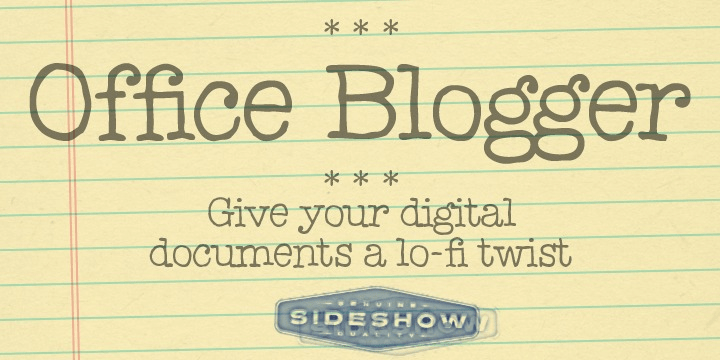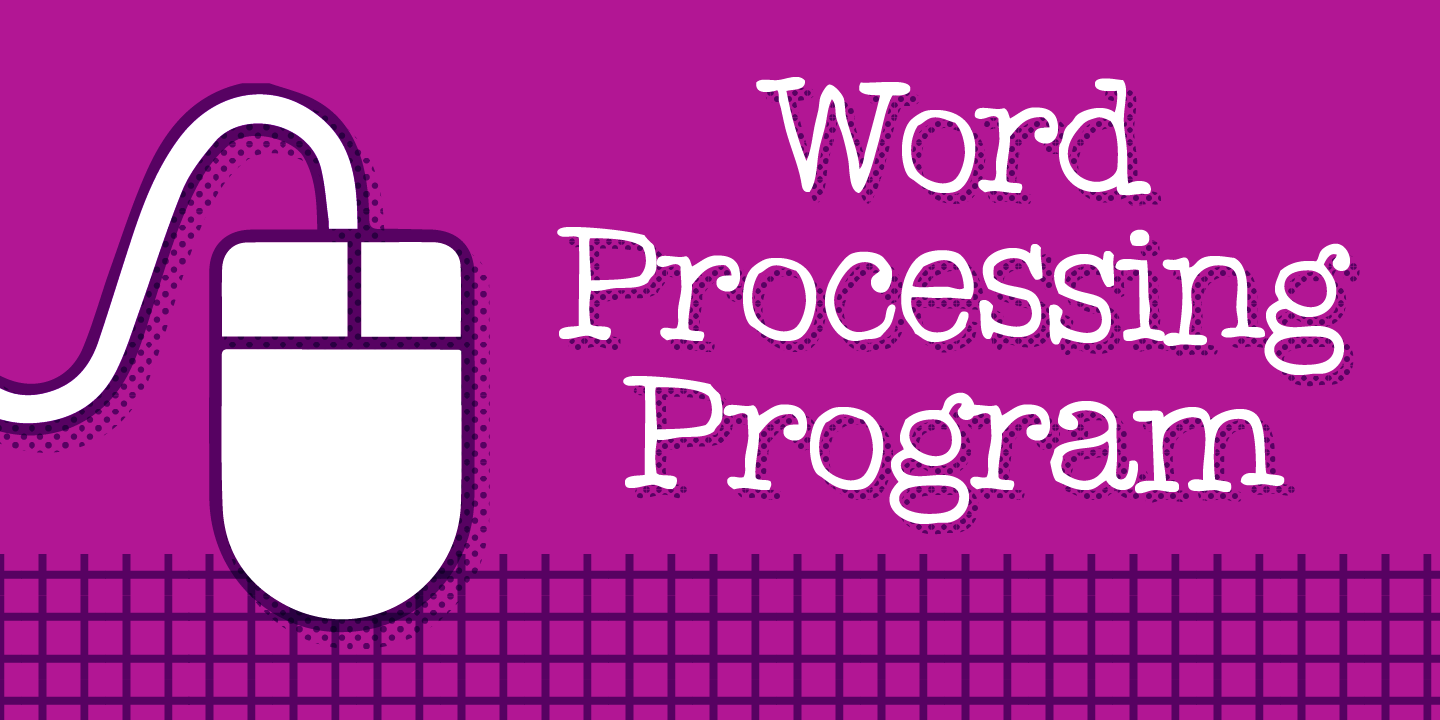
Office Blogger
Slaving away at the 9-to-5 is no way to live! Not when your head is filled with all kinds of creative ideas, gossip and new finds to share with your devoted readers! Let 'em know you don't give a rip about the bossman invading YOUR time to update that blog . . . You Go Office Blogger!
Find your voice with Office Blogger, loaded with tons of automatic ligatures and alternate letters in dynamic OpenType!